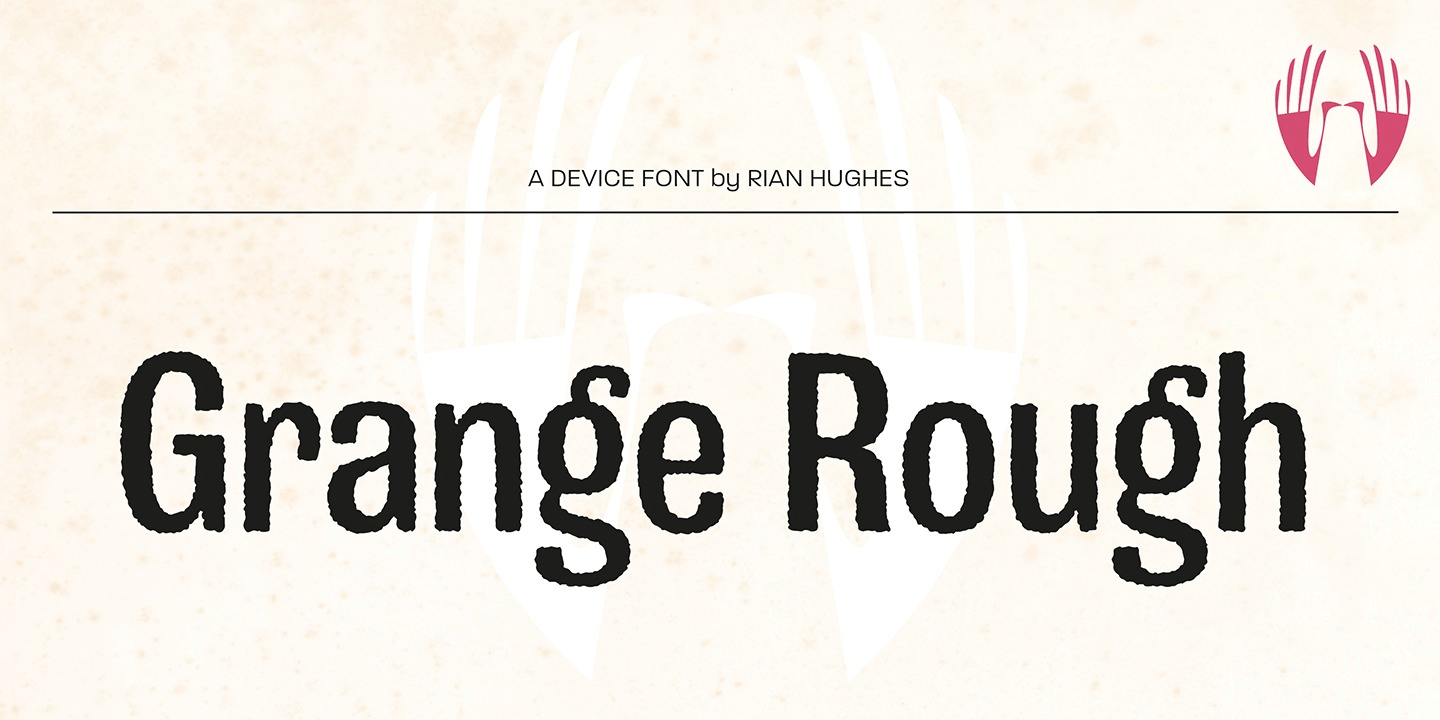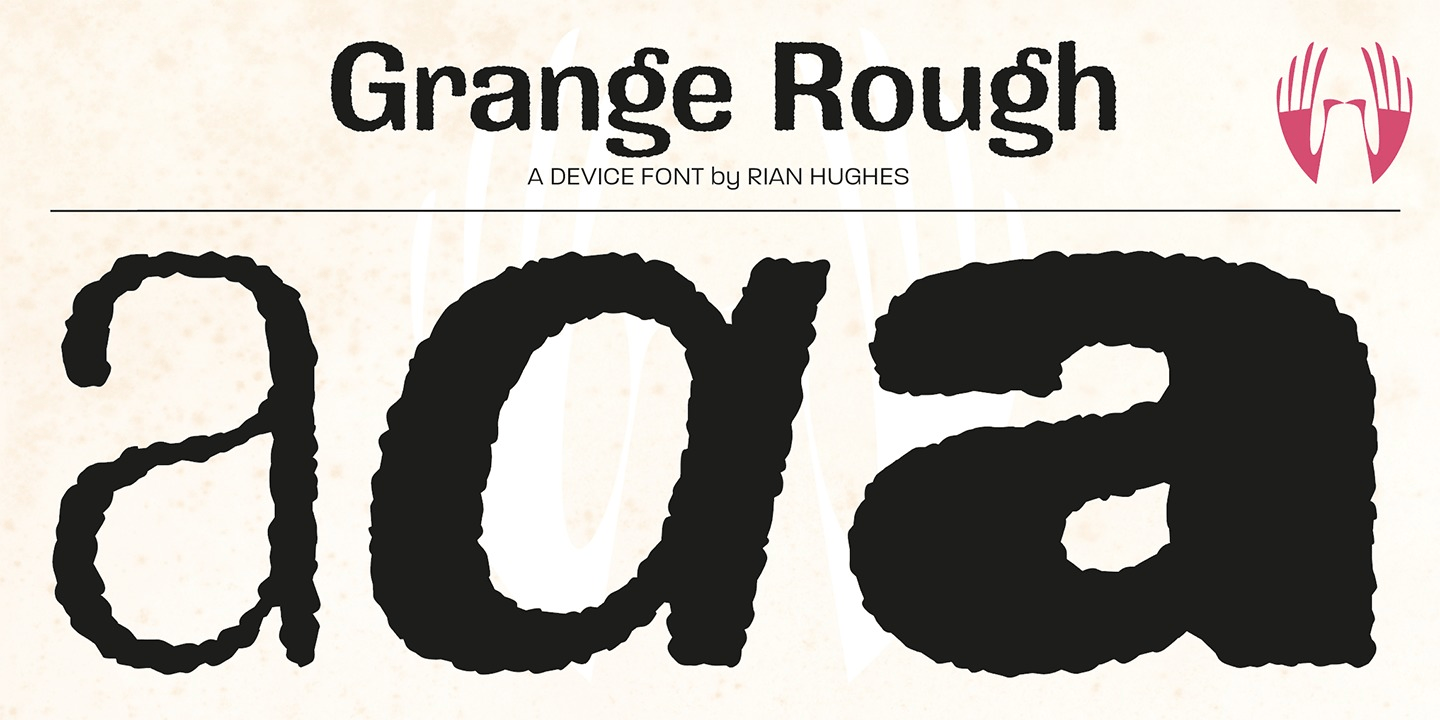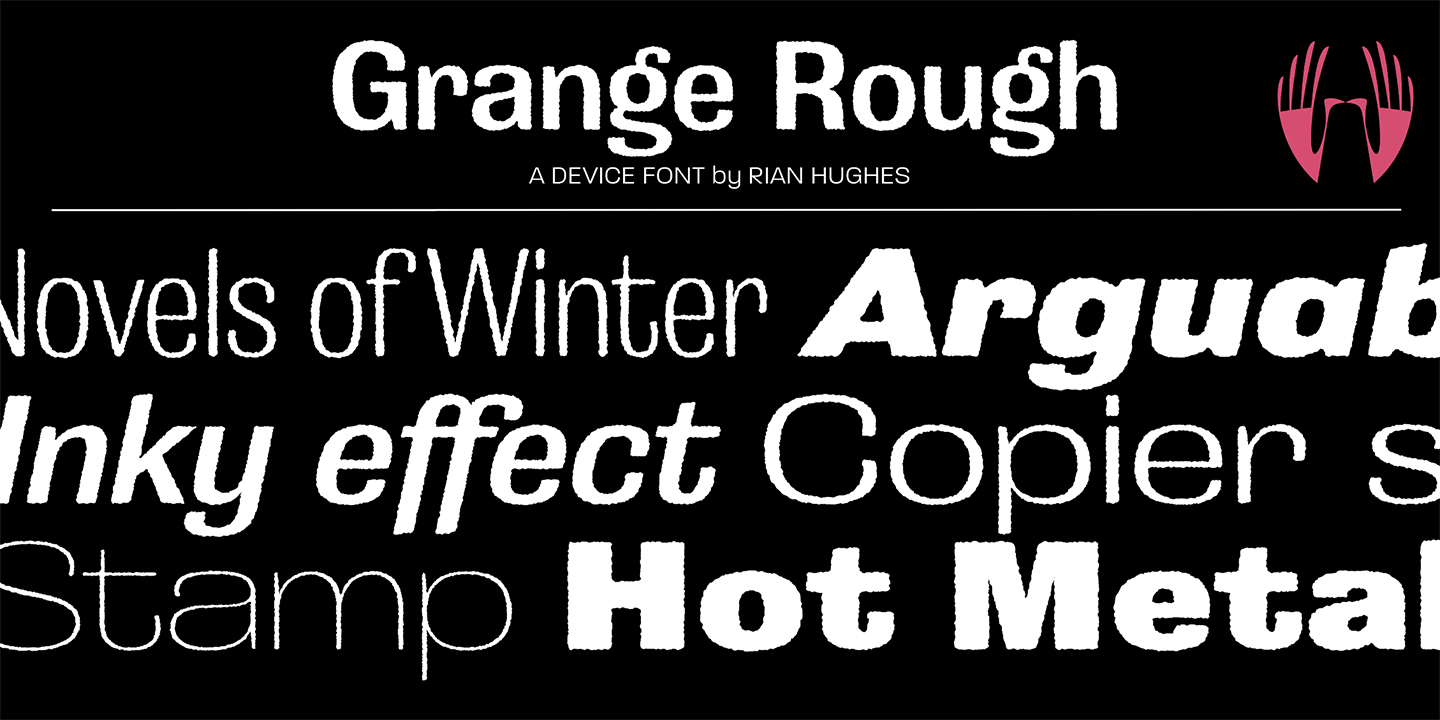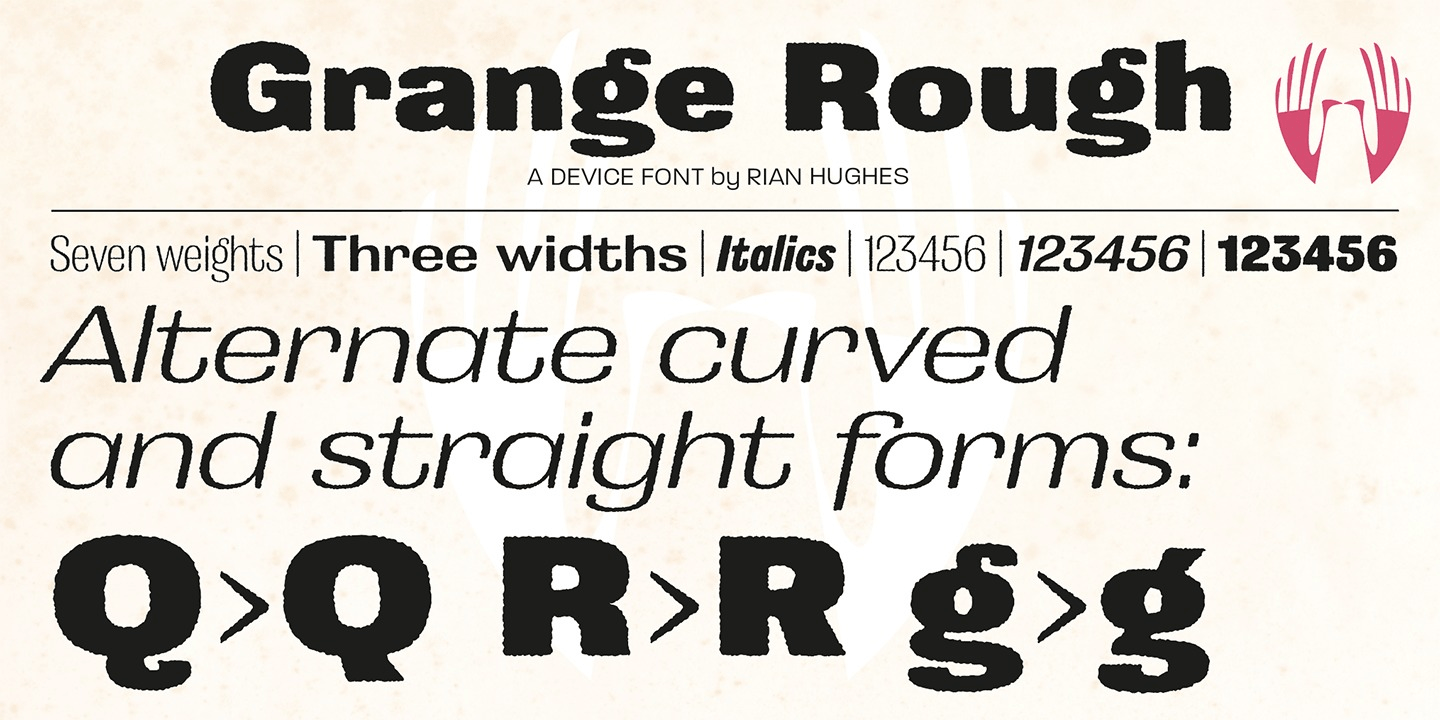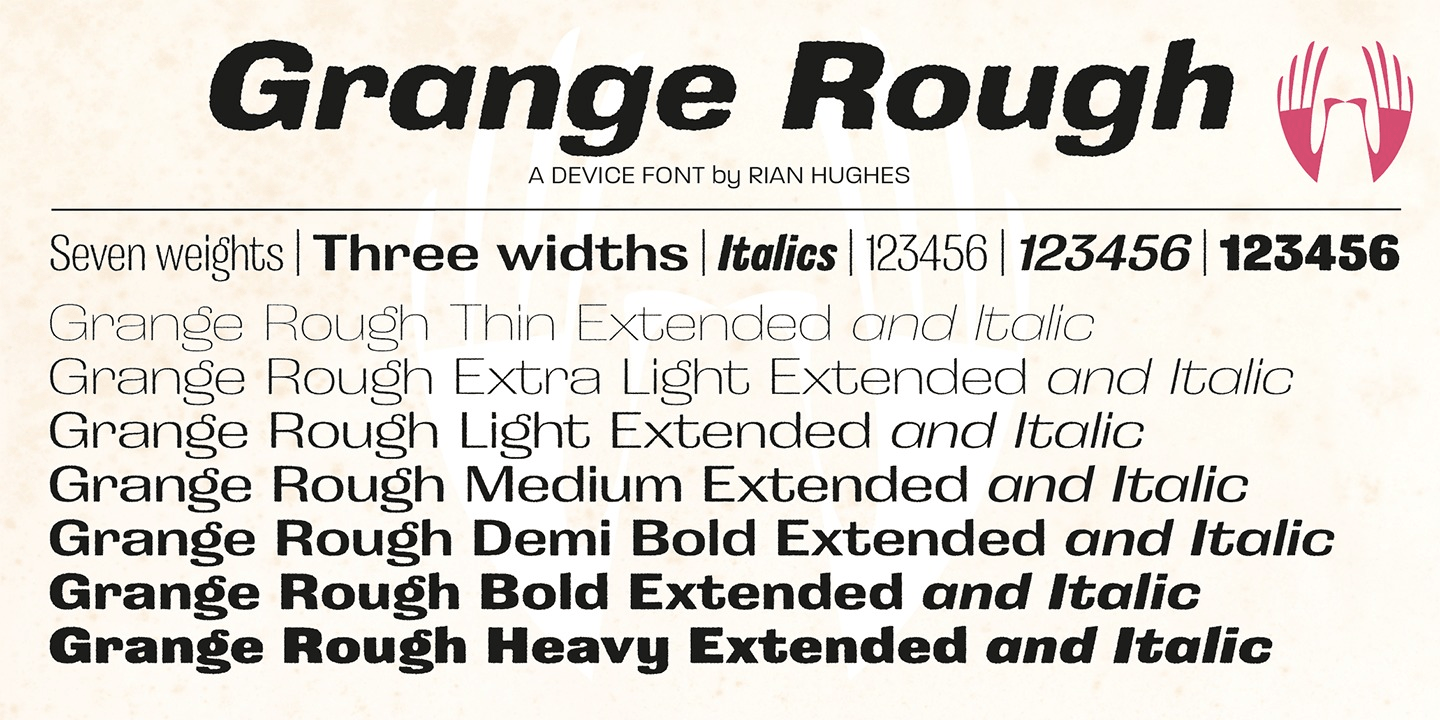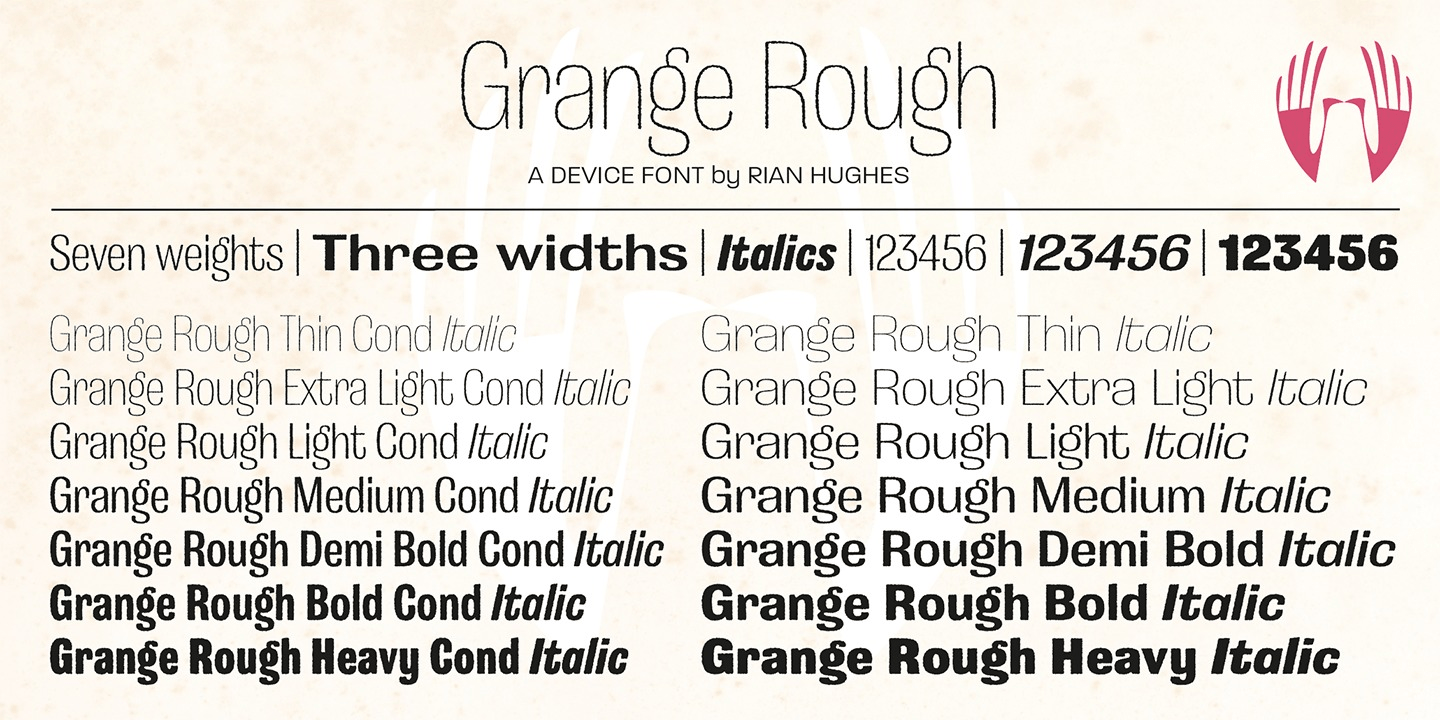
Grange Rough
Grange Rough is an inky, distressed version of Grange that mimics the effects of vintage hot-metal type on rougher paper.
Grange is the Device interpretation of the classic 'Grot' thick/thin sans style. Unlike the traditional models on which it is based, Grange takes a rational, consistent approach across wide range of weights and widths for contemporary use.
The font includes alternative curved and straighter versions of key characters, most obviously the lower-case 'g' and capital 'R', allowing the font to take on either a sharper or warmer, more playful appearance. These can be toggled on or off using the 'Alts' feature in Illustrator, or 'Stylistc Sets' in Indesign. Contains proportional, lining and tabular numerals. Perfect for both headline and text.